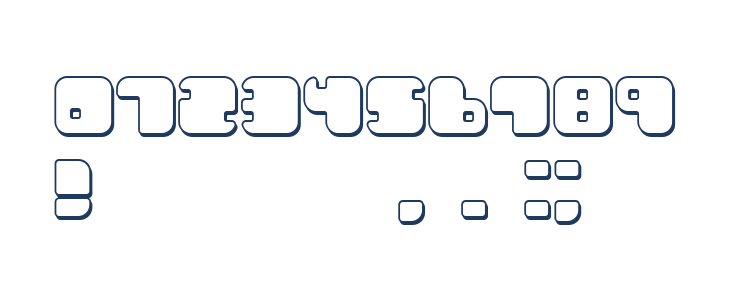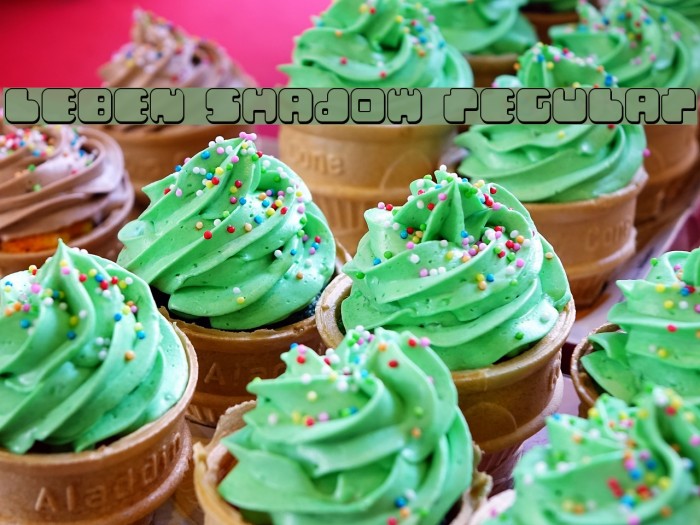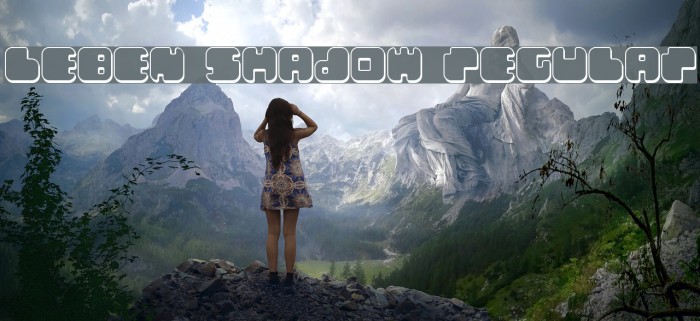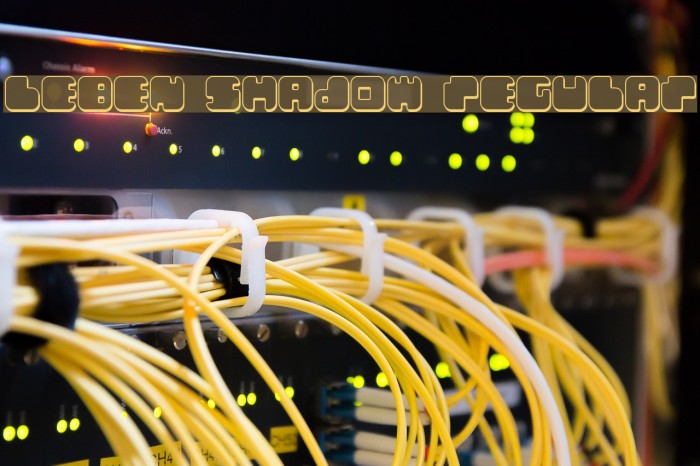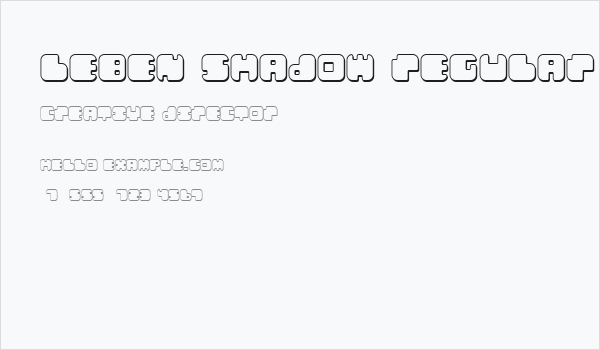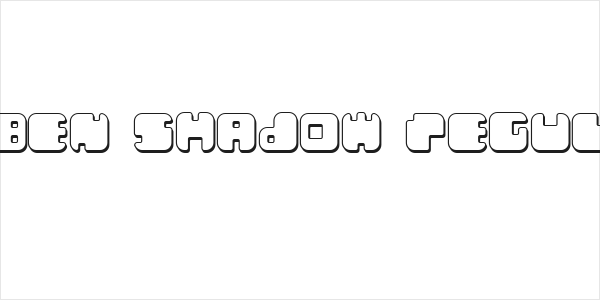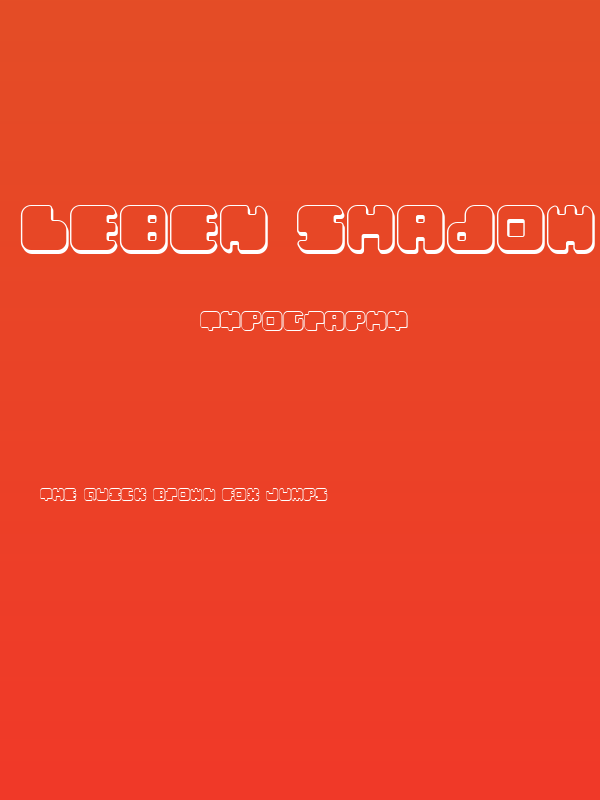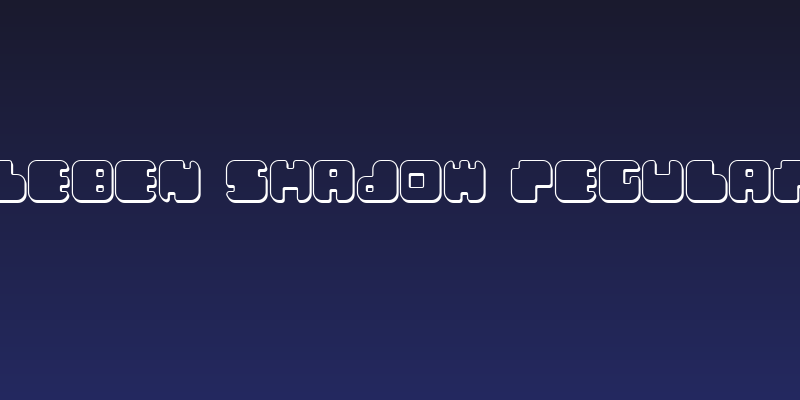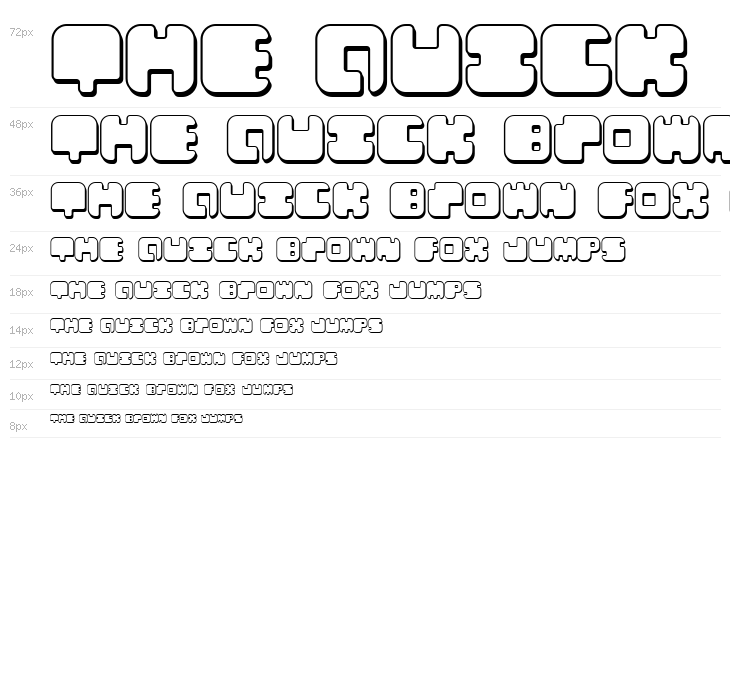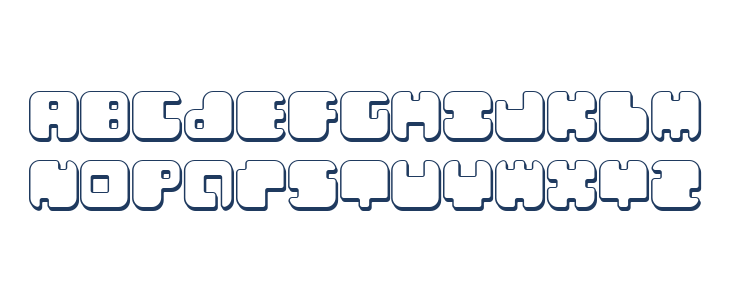
Leben Shadow Regular Font
Leben Shadow Regular Description
This font features a playful and bold design with a shadow effect that gives it a three-dimensional appearance. The characters are rounded and have a bubble-like quality, creating a sense of fun and whimsy. The shadow effect is consistent across all characters, enhancing the depth and making the text stand out. The font maintains a uniform thickness throughout, contributing to its bold and impactful look. It is well-suited for designs that require a lively and engaging typeface, such as children's books, posters, or playful branding materials.
| Overall Style | Playful, Fun, Three-dimensional |
| Proposed Projects | Ideal for children's books, playful branding, posters, and any design needing a fun, engaging typeface. |